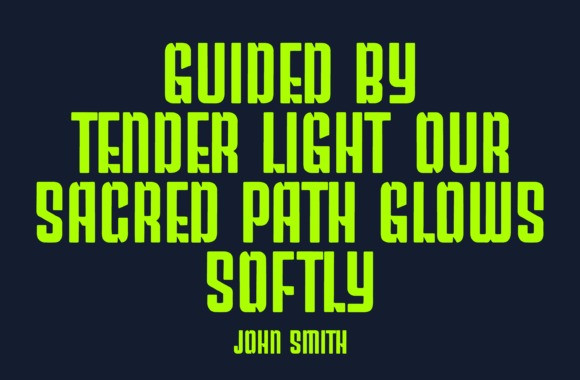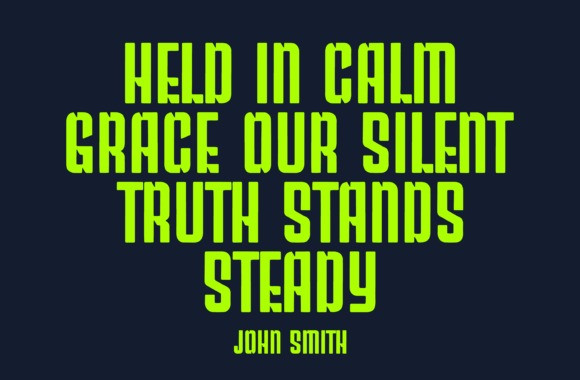
CALABRIA FONT
Calabria Font A towering, ultra-condensed display typeface with muscular curves and tight spacing, built to dominate headlines and posters. Its heavy weight and rounded edges give it a powerful yet modern presence—perfect for sports, streetwear, branding, and high-impact visuals.